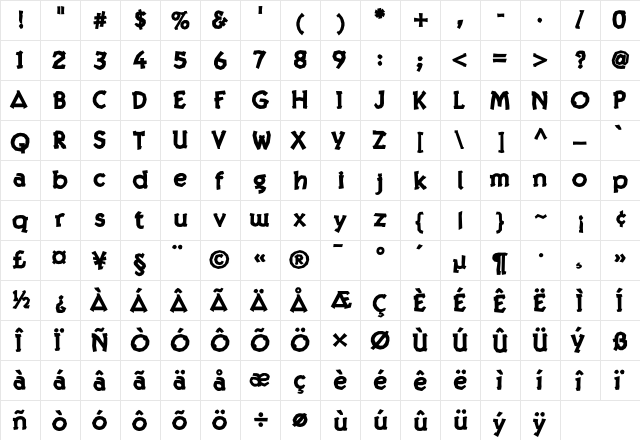
Twig Black Regular
Design Context for Twig Black Typeface
Twig Black is a composed and adaptable typeface that performs quietly and consistently across a wide range of design contexts.